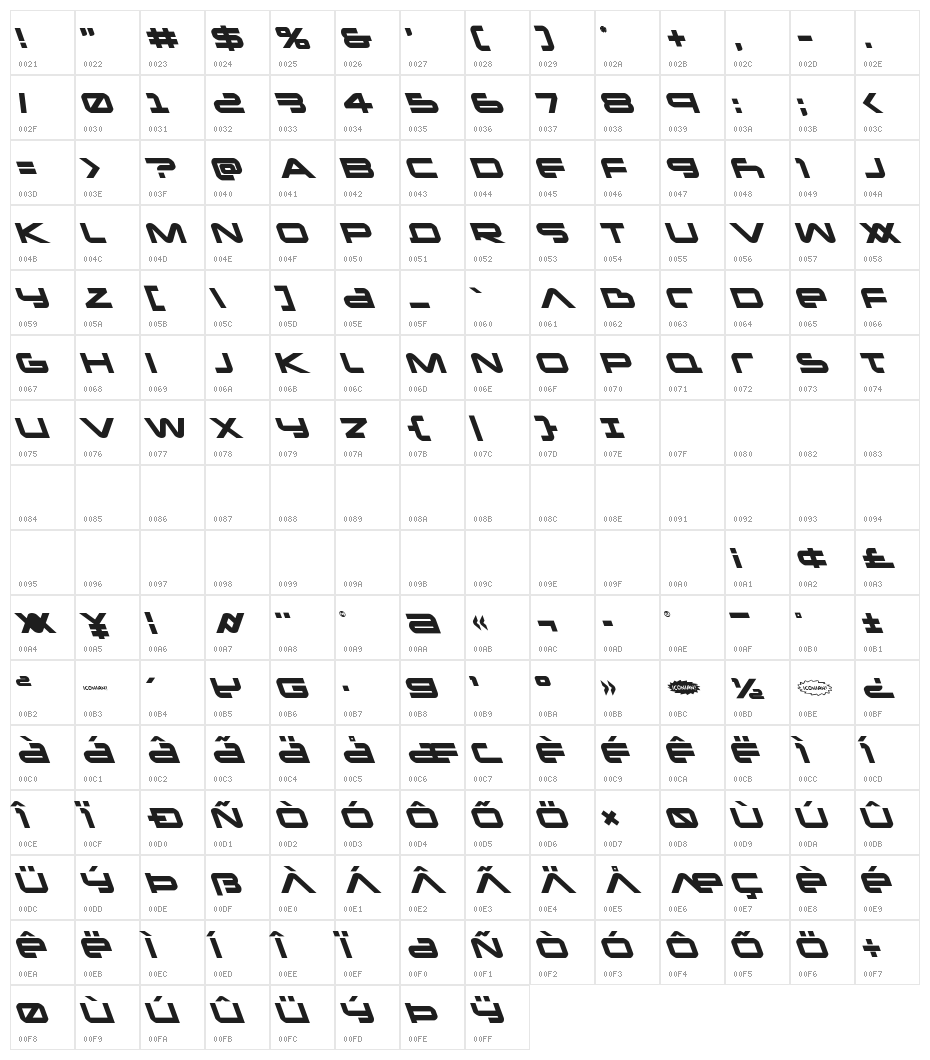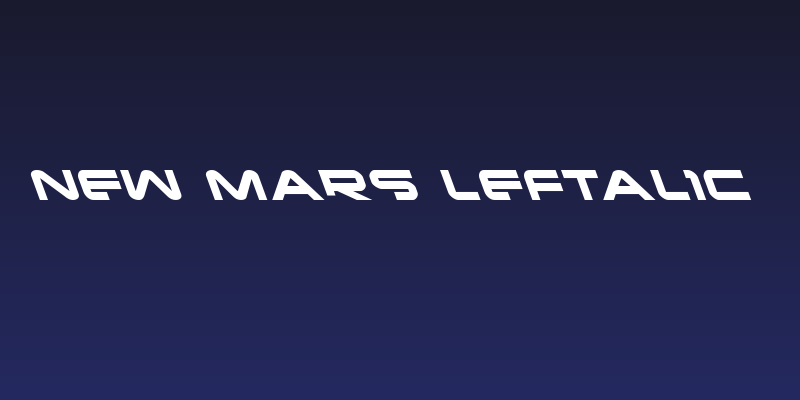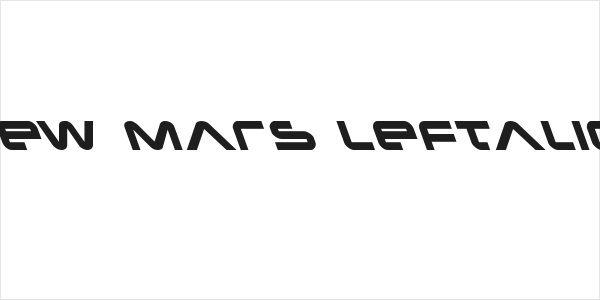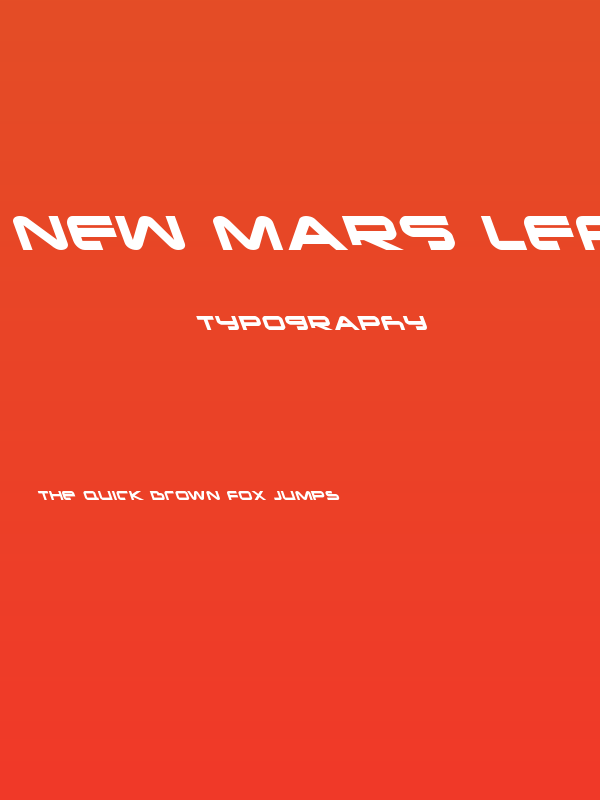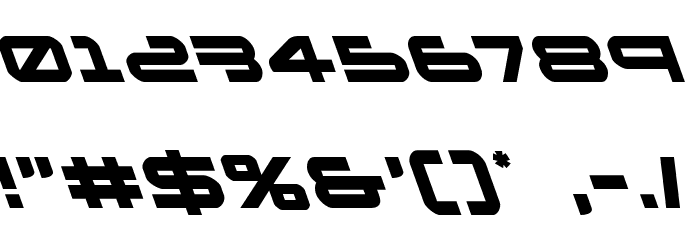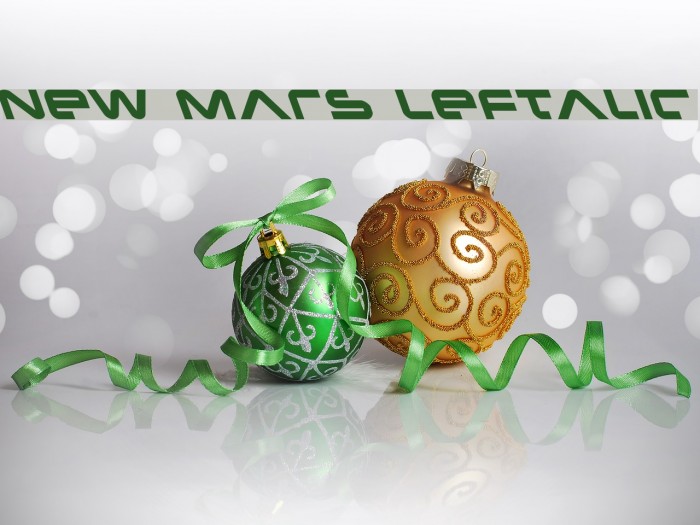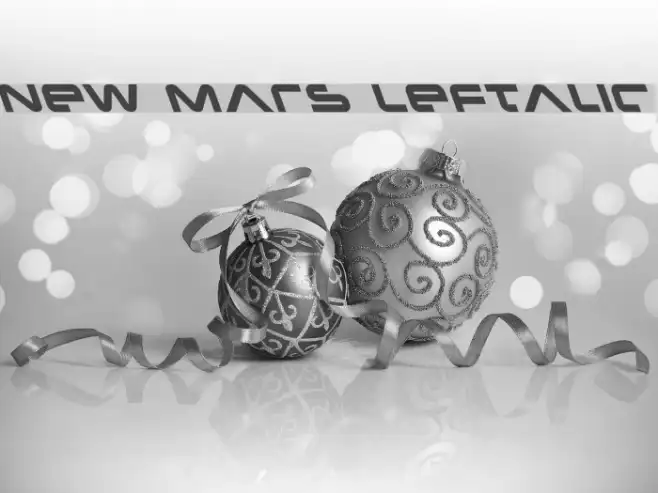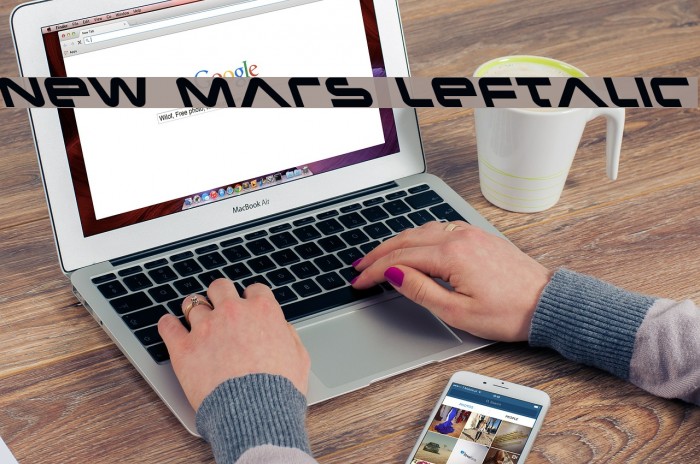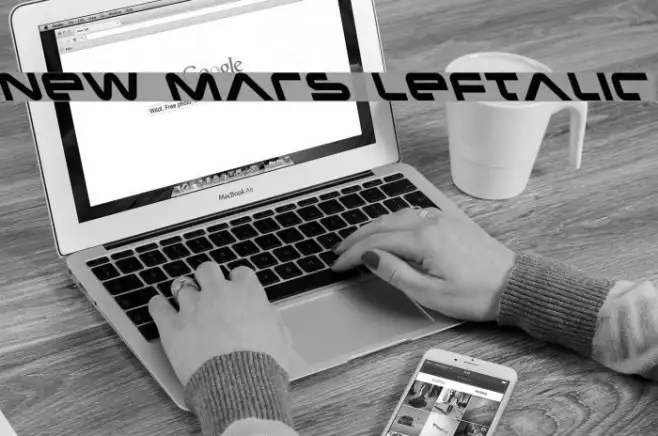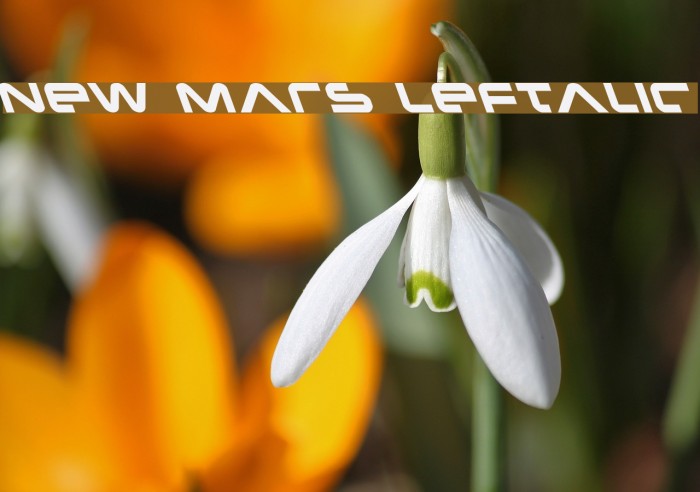
New Mars Leftalic Font
New Mars Leftalic Description
This font features a futuristic and angular design, characterized by its sharp edges and geometric forms. The letters are slightly slanted, giving a sense of motion and dynamism. The uppercase and lowercase letters maintain a consistent style, with a bold and impactful presence. The numbers and special characters follow the same design principles, ensuring uniformity across all glyphs. The font's unique style makes it suitable for projects that require a modern and tech-savvy appearance.
| Proposed Projects | Ideal for sci-fi themed designs, technology branding, video game titles, and modern advertising. |